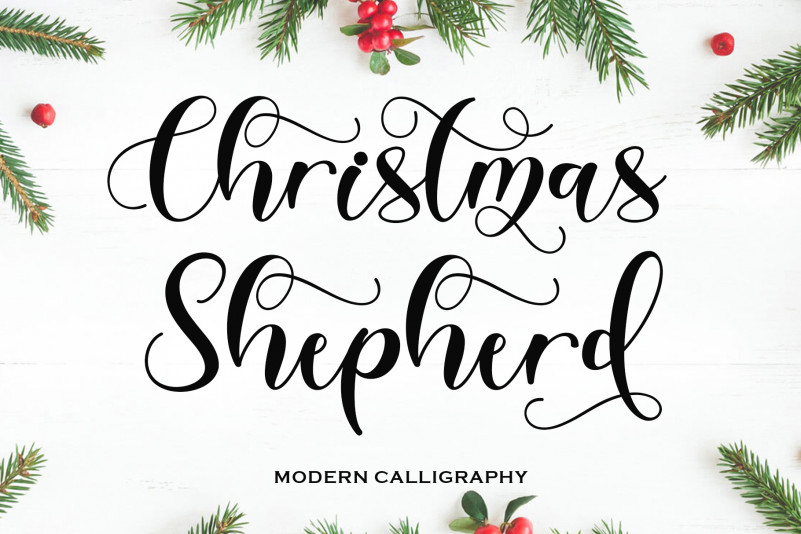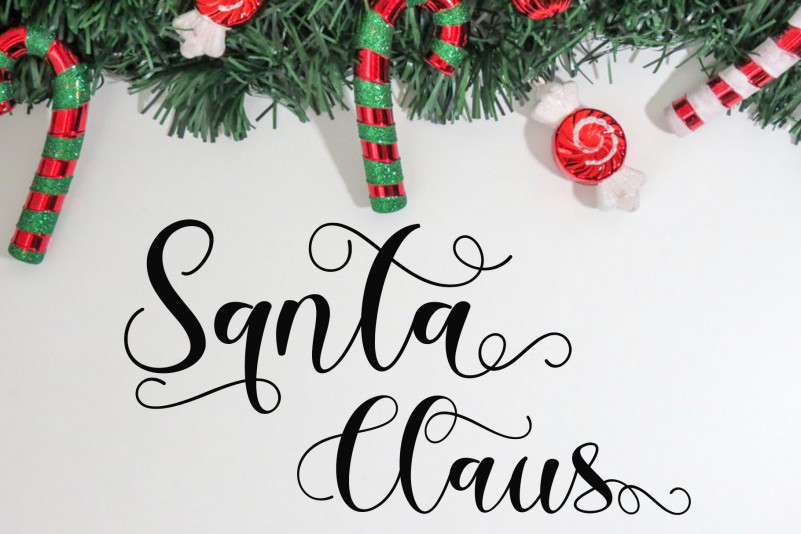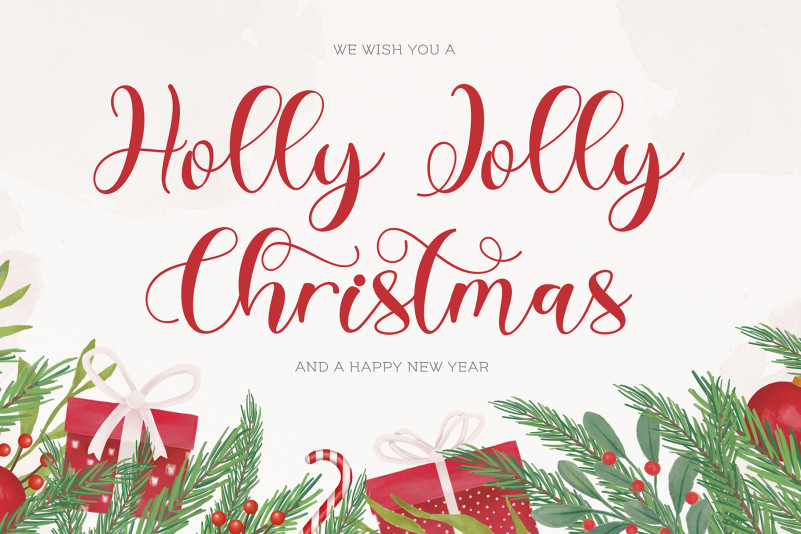
Castillo Calligraphy Font
Castillo Modern Script Typeface, A collection of letters and numbers suitable your projects also great for Logotype, Branding Design, Logo Design, Digital Lettering Arts, T-Shirt/Apparel, Poster, Magazine, Signs, Advertising Design, and any design needs